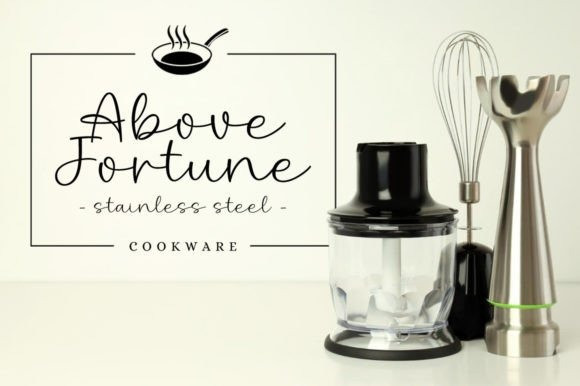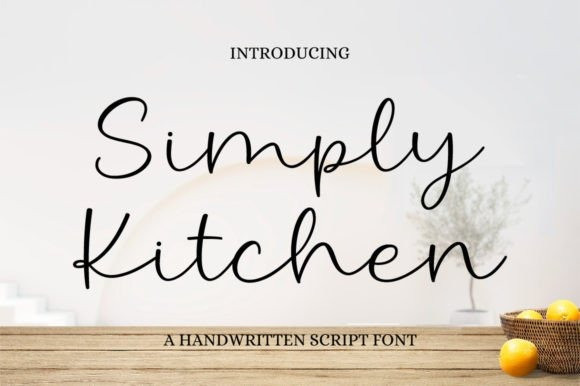
Simply Kitchen Handwriting Font
Simply Kitchen Handwriting Font is a beautiful, well-balanced, and graceful script font. It is defined by smooth curves and is perfect for fashion branding or editorial designs.